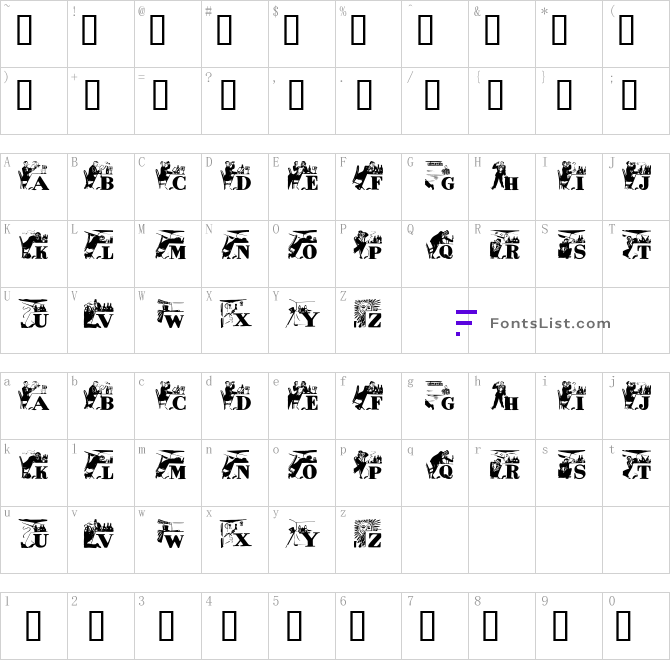
- Font Name:AlkoInitials
AlkoInitials.ttf is a very beautiful artistic font, AlkoInitials.ttf is widely used in the design and printing of various books and pictures,AlkoInitials.ttf has a strong visual impact,AlkoInitials.ttf is a commonly used font in newspapers, magazines and books, and is used in posters, e-commerce Poster design, store design, logo design, font design and other fields.AlkoInitials.